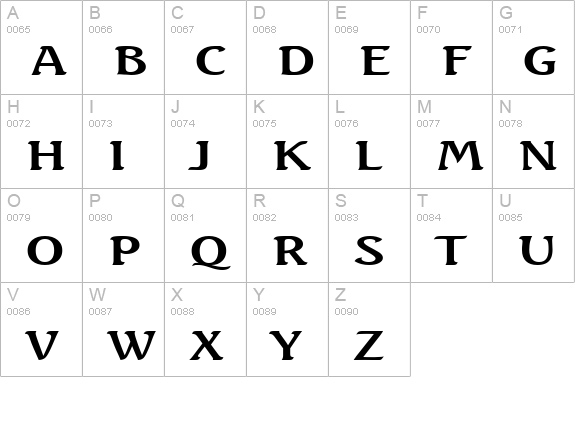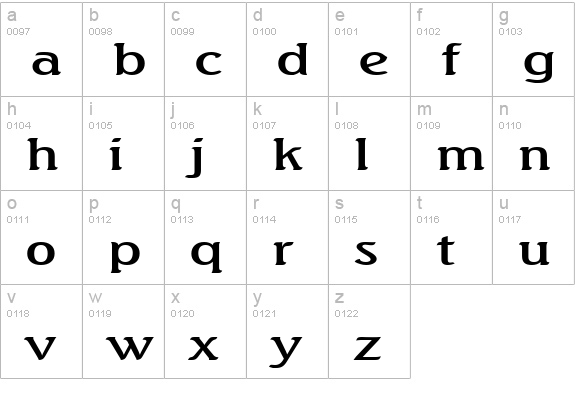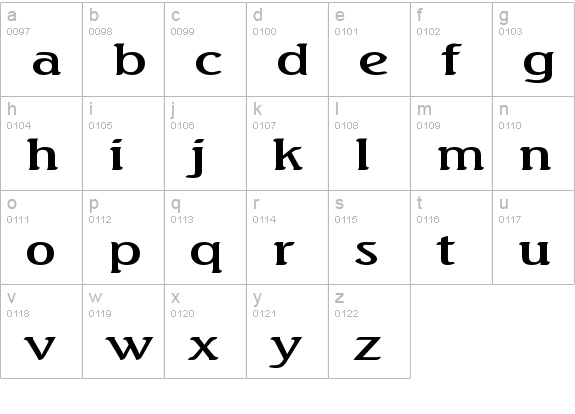
Beach Extended Normal Font Details
Beach Extended Normal is the standard, neutral, extended-width variant in the Beach typeface family \xE2\x80\x94 well suited to general body text, paragraphs, and standard typographic work.
Introducing Beach Extended Normal font, a versatile and modern typeface that captures the essence of sun-kissed shores and coastal charm. This font exudes a sense of relaxation and tranquility, making it perfect for a wide range of design projects. With its clean lines and extended letterforms, Beach Extended Normal font offers a contemporary twist on classic beach-inspired typography. Best of all, Beach Extended Normal font is available for free download at FontsMarket.com. Whether you're working on a branding project, website design, or any other creative endeavor, this font is sure to add a touch of beachy vibes to your work. Embrace the laid-back spirit of the coast with Beach Extended Normal font and let your designs shine with a touch of seaside flair.